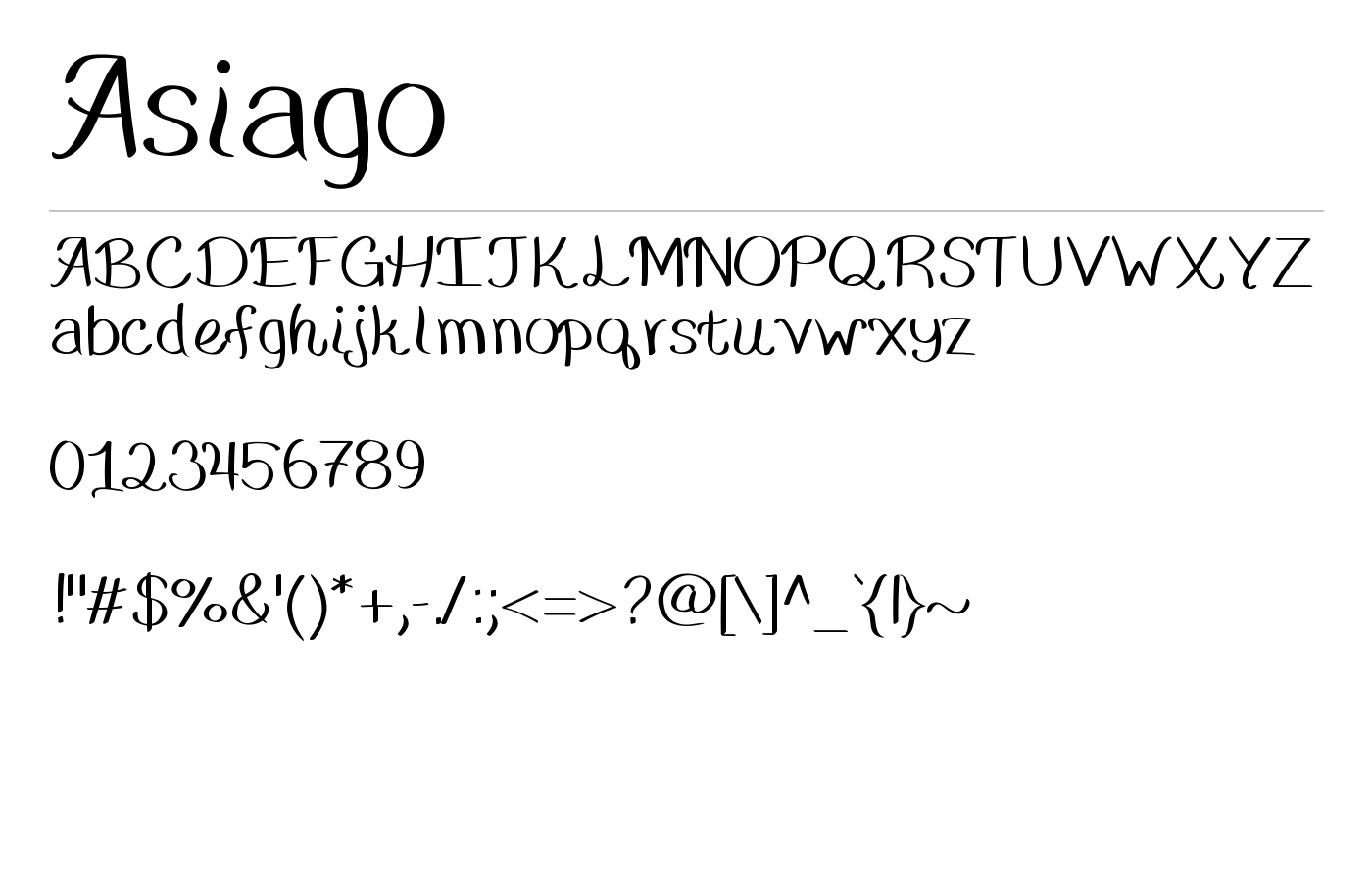
Asiago is a charming serif font with a delicate, handwritten feel, characterized by its moderate contrast and slightly whimsical letterforms. Its elegant yet playful style makes it ideal for creative projects, invitations, branding, and editorial designs where a unique, personal touch is desired. This font stands out by blending classical serif features with a fresh, artistic flair, perfect for adding character and warmth to your text.
Asiago Font
About Asiago Font